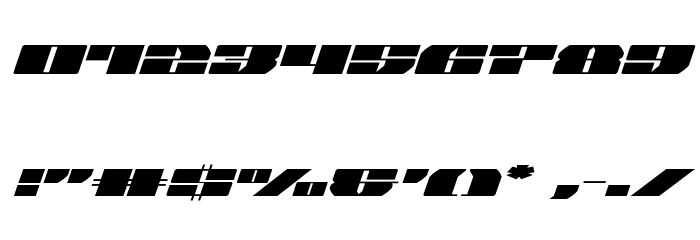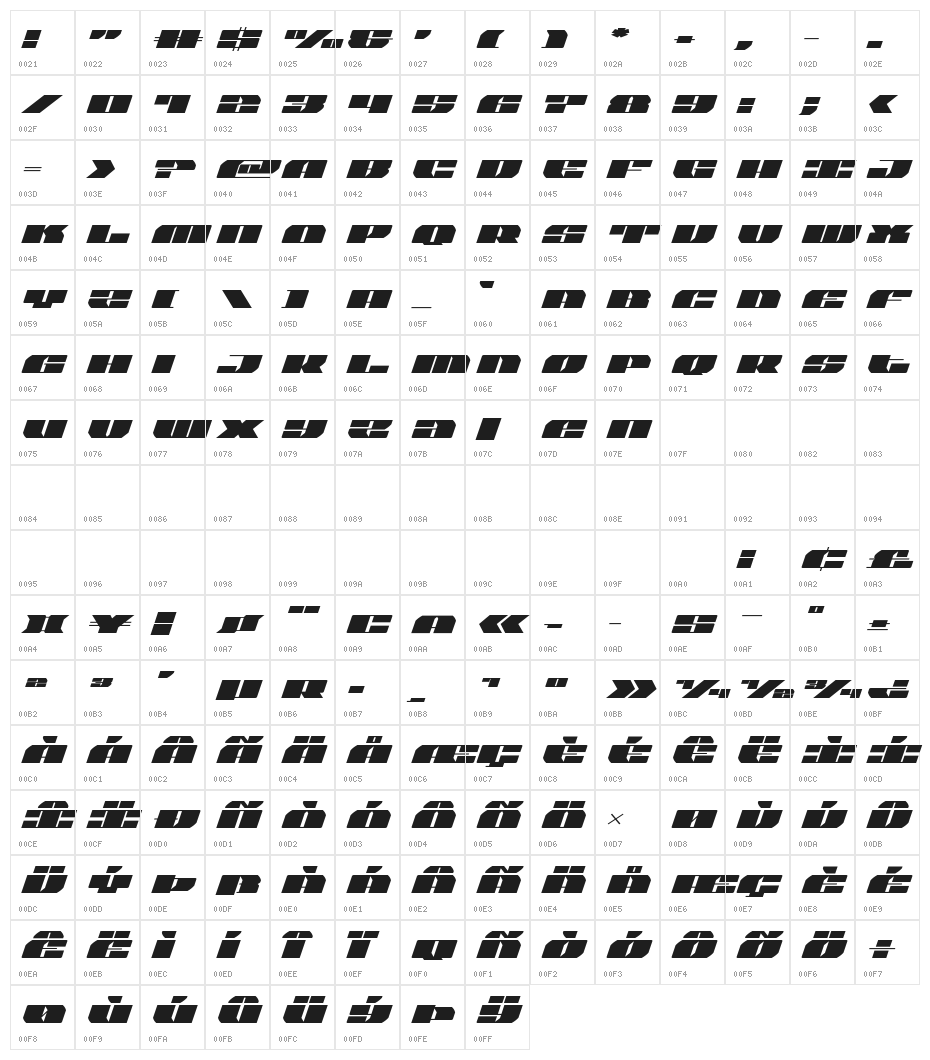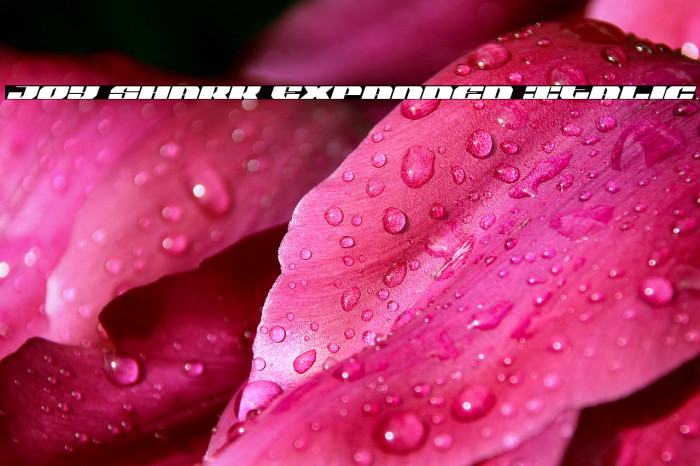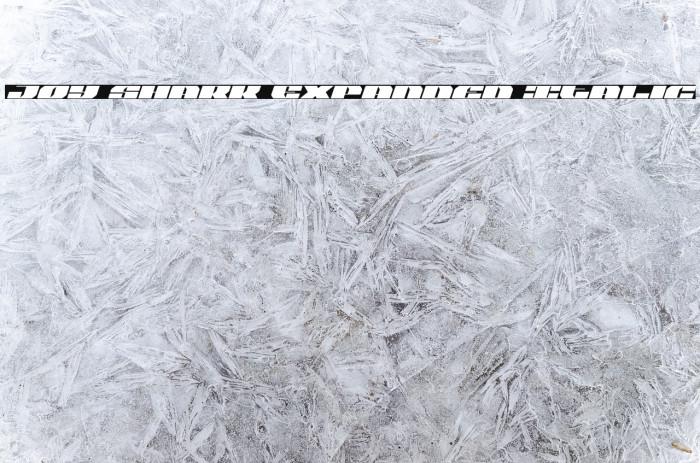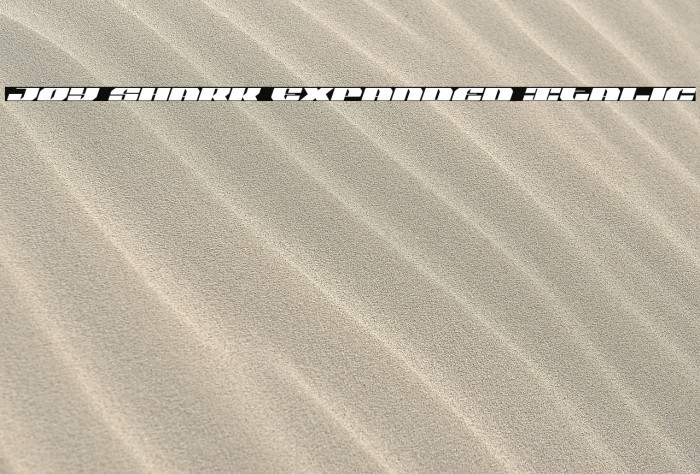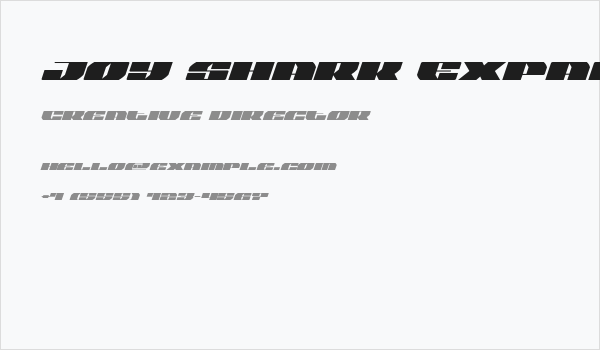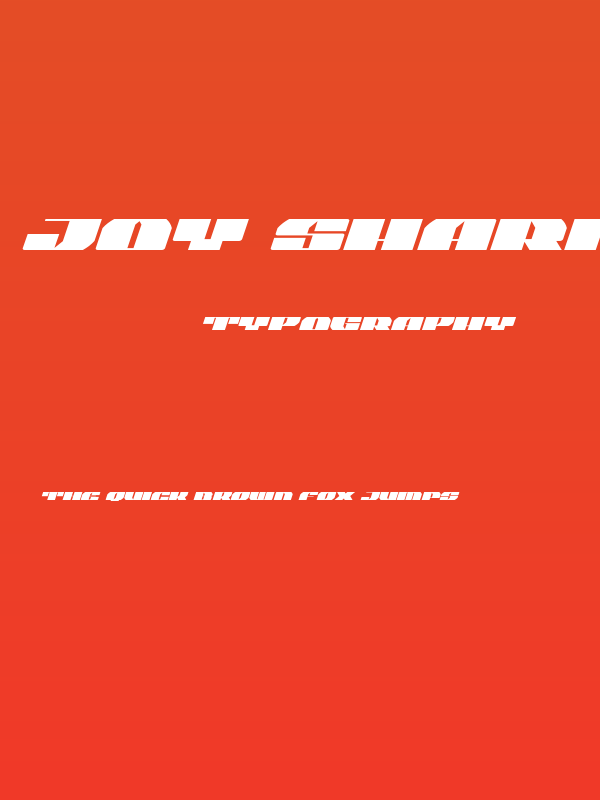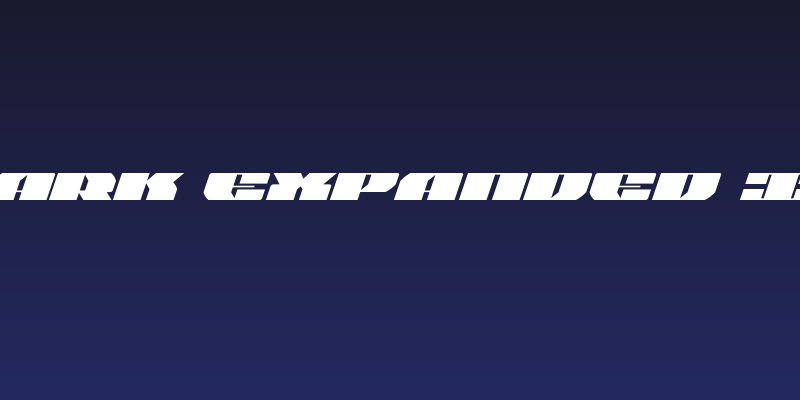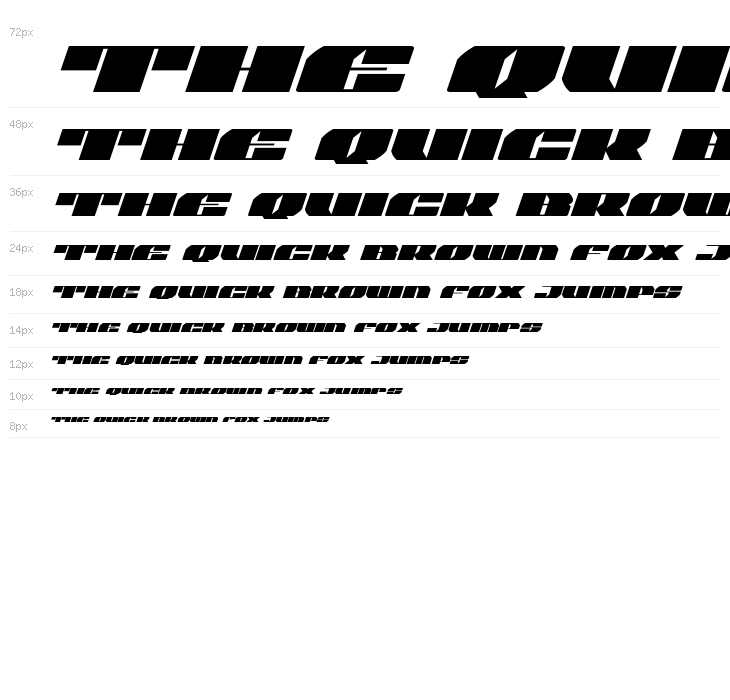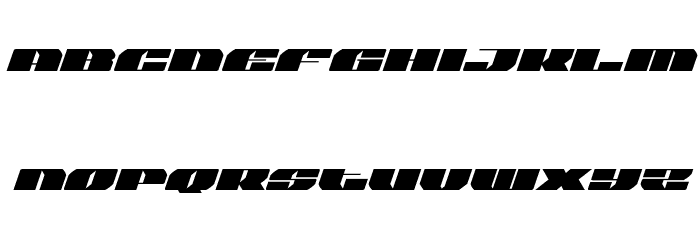
Joy Shark Expanded Italic Font
Joy Shark Expanded Italic Description
This font features a bold and dynamic style with an expanded width and italic slant, giving it a strong, forward-moving appearance. The characters are designed with sharp angles and geometric shapes, creating a futuristic and edgy look. The uppercase and lowercase letters maintain a consistent style, with the uppercase being more prominent and the lowercase slightly more compact. The numbers and special characters follow the same design principles, ensuring uniformity across all glyphs. The font's boldness and expanded form make it highly visible and impactful, suitable for attention-grabbing designs.